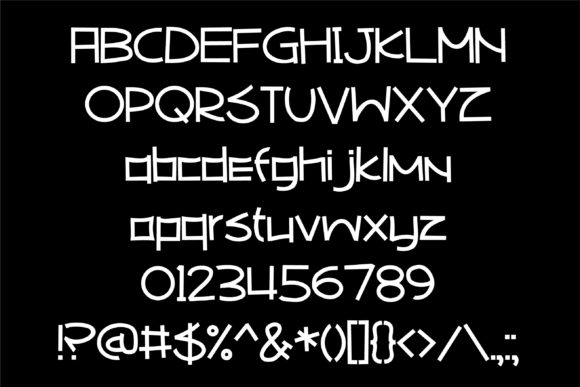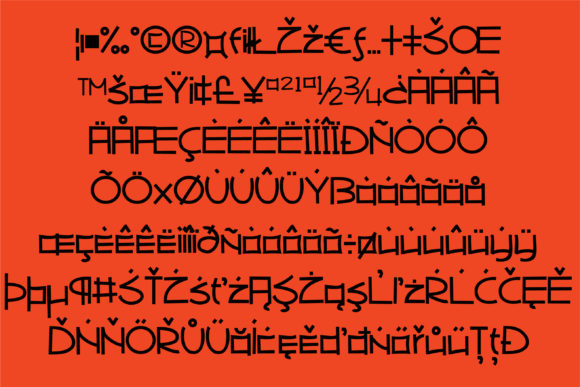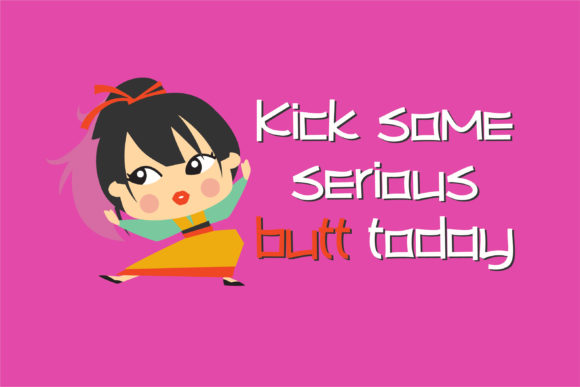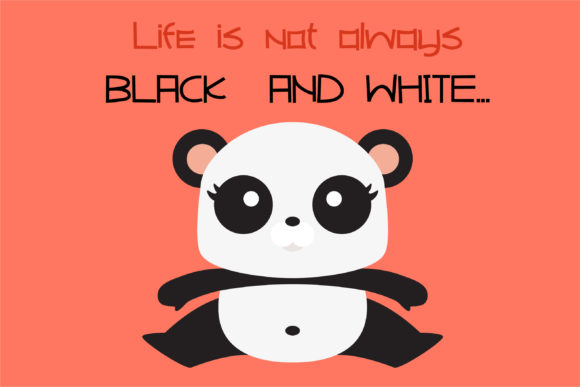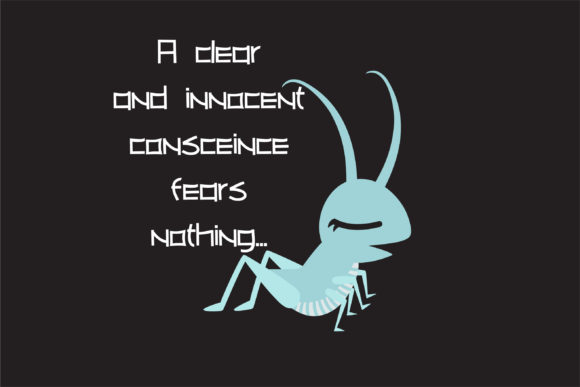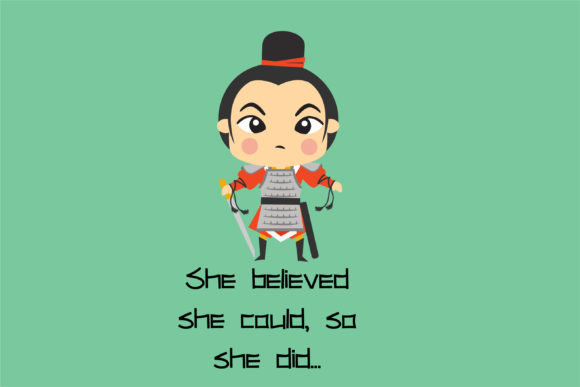
Introduction to PN Hangulishious Font
Remember that moment when you finally found the perfect font to elevate your creative project? The one that made your design stand out and brought your vision to life? For designers, discovering the right font can be a game-changer. It’s the difference between a project that’s just okay and one that truly wows.
That’s why we’re excited to introduce you to the PN Hangulishious Font, a simple yet quirky sans serif font that’s sure to add a touch of personality to your designs. Whether you’re working on a logo, brochure, or social media graphics, this font is the perfect design resource to take your project to the next level.
Key Features of PN Hangulishious Font
- PN Hangulishious Font is a unique design resource that can add a creative twist to your projects, making it stand out from the crowd.
Honest Review: PN Hangulishious Font
I recently stumbled upon the PN Hangulishious Font and I must say it’s been a delightful addition to my design toolbox. This font is perfect for designers working on creative projects that require a touch of sophistication and elegance.
What works well: ✨ The PN Hangulishious Font has a beautiful, high-quality design that’s perfect for both print and digital use. The font is also free to download, making it an excellent resource for designers on a budget. I particularly appreciate the transparent background, which allows for seamless integration with any design element.
What’s not so great: ⚠️ While the PN Hangulishious Font is an excellent addition to any design resource library, it’s not without its limitations. The font is only available in a limited range of styles, which may not be ideal for designers working on complex projects that require a wide range of typography options.
Overall, I’m really impressed with the PN Hangulishious Font. It’s a high-quality, free resource that’s perfect for designers working on creative projects. While it may not be the most comprehensive font library, it’s an excellent choice for designers looking to add a touch of elegance to their designs.